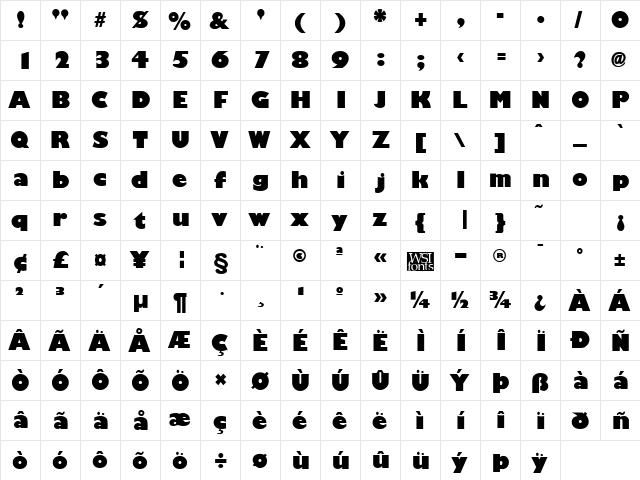
GiliganBlack Regular
Design Context for GiliganBlack Typeface
GiliganBlack takes a measured approach to typography — its balanced proportions and neutral character make it a reliable workhorse for both digital and print work.